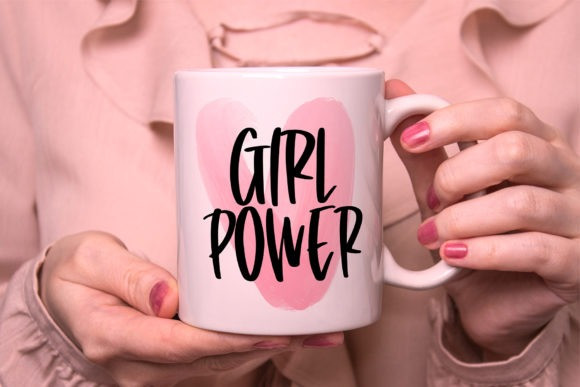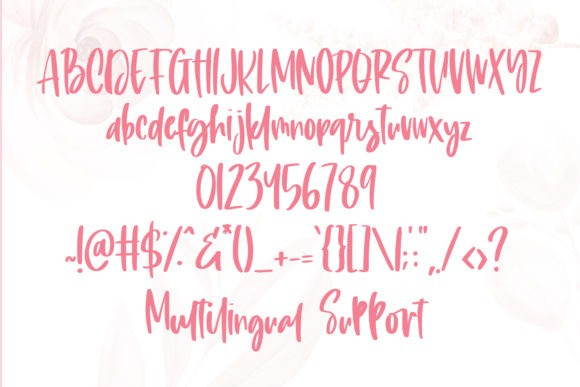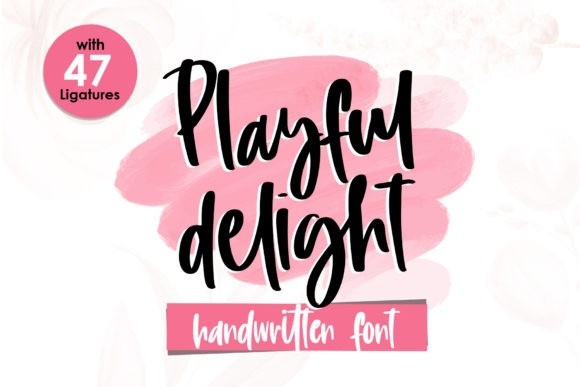
Playful Delight Script Font
Playful Delight is a sweet and quirky handwritten font. It is PUA encoded which means you can access all of the glyphs and swashes with ease! It features a varying baseline, smooth lines, gorgeous glyphs and stunning alternates.